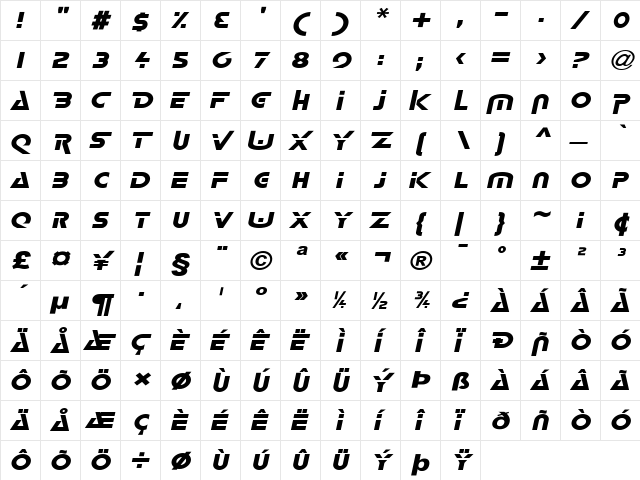
Delta-Extended Italic
Design Context for Delta-Extended Typeface
Delta-Extended is a composed and adaptable typeface that performs quietly and consistently across a wide range of design contexts. The slanted form adds forward momentum and visual energy.
Pro Tip: Use Delta-Extended for emphasis, pull quotes, and subheadings where its slanted energy can add rhythm to the layout.